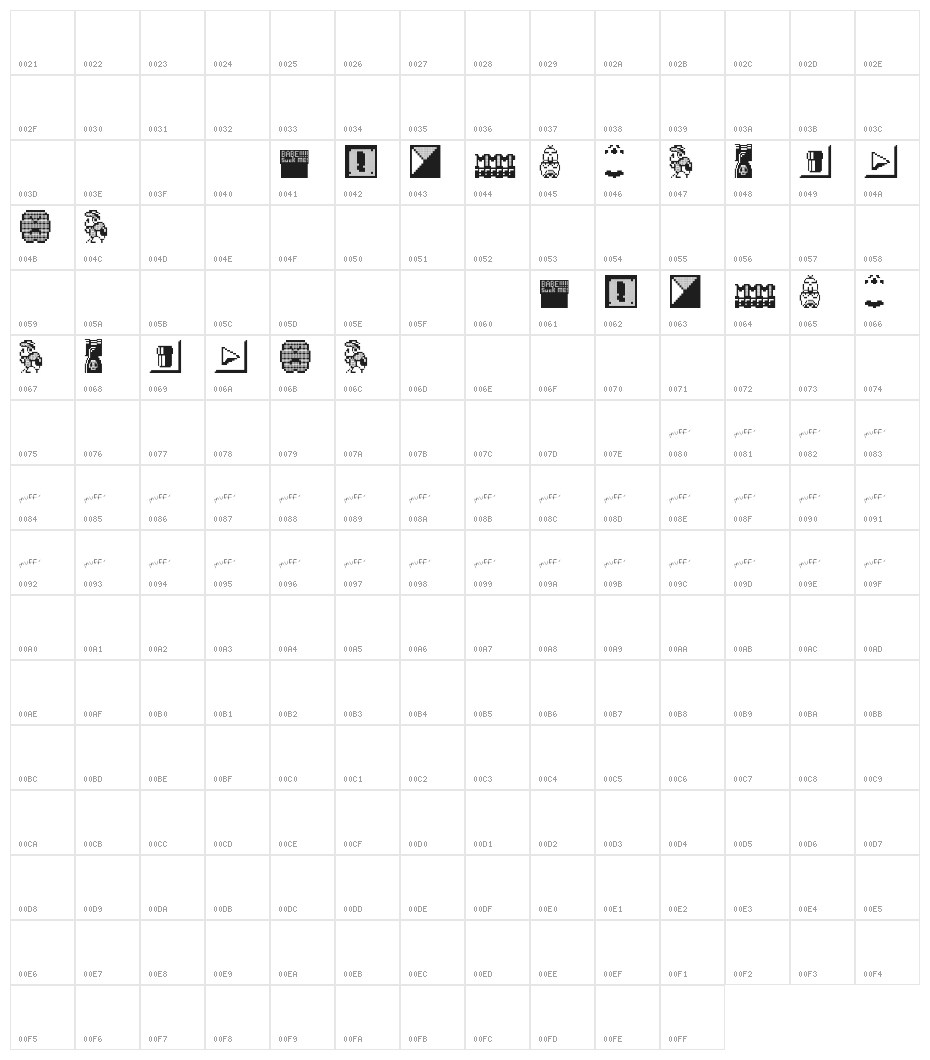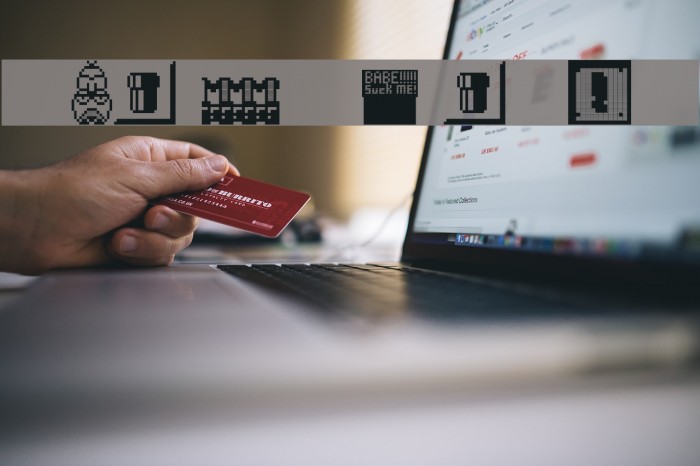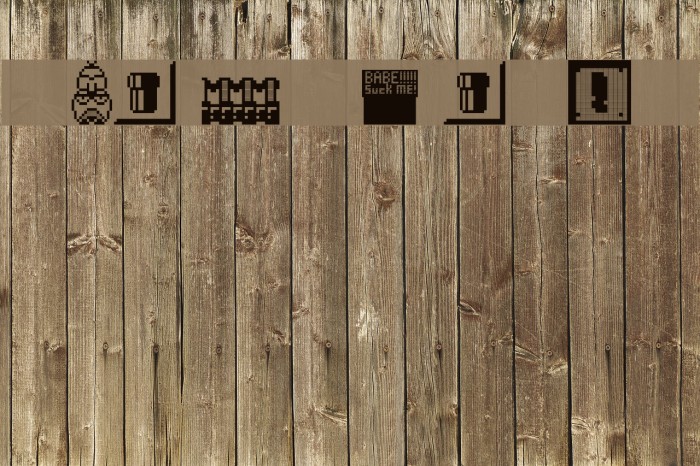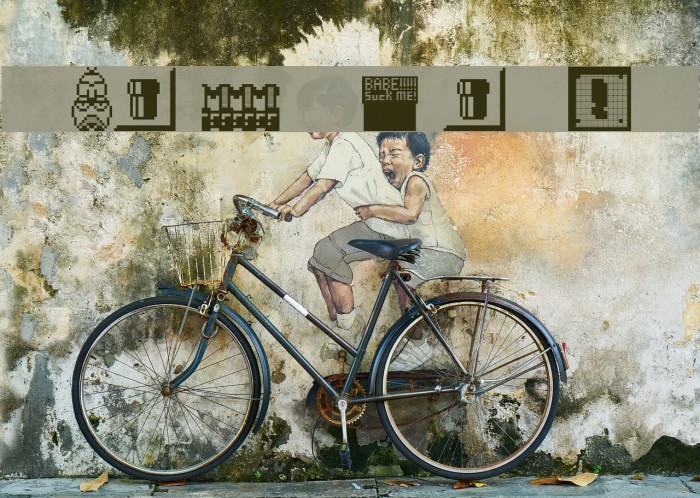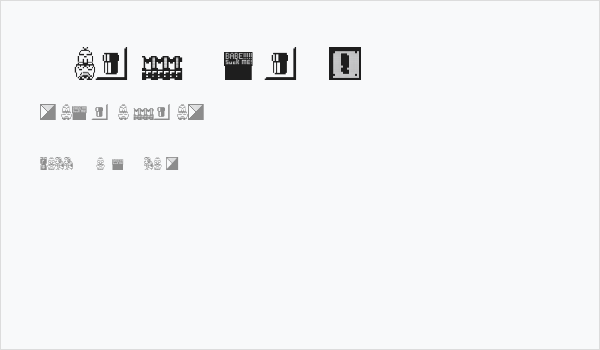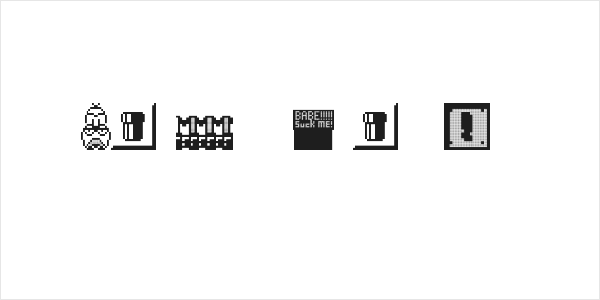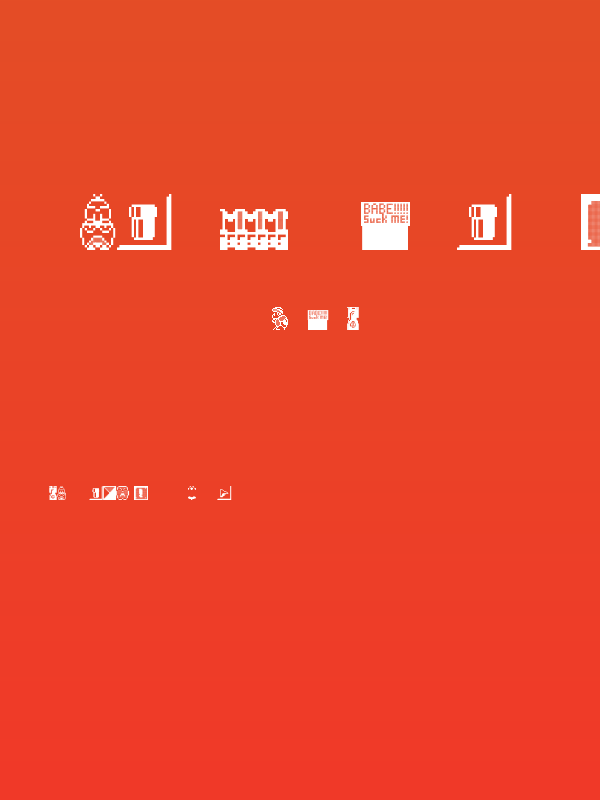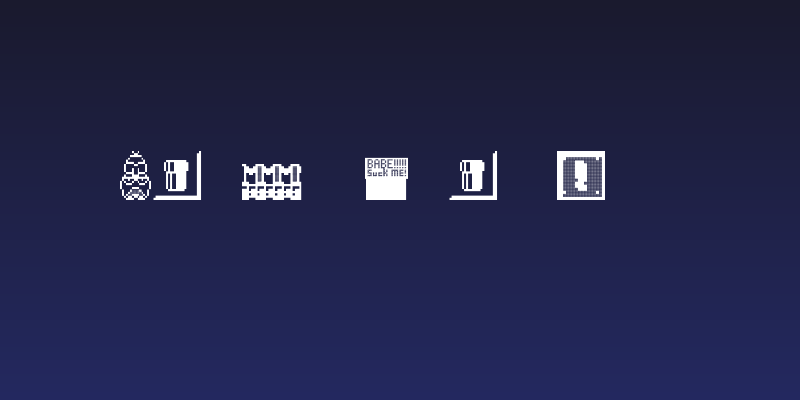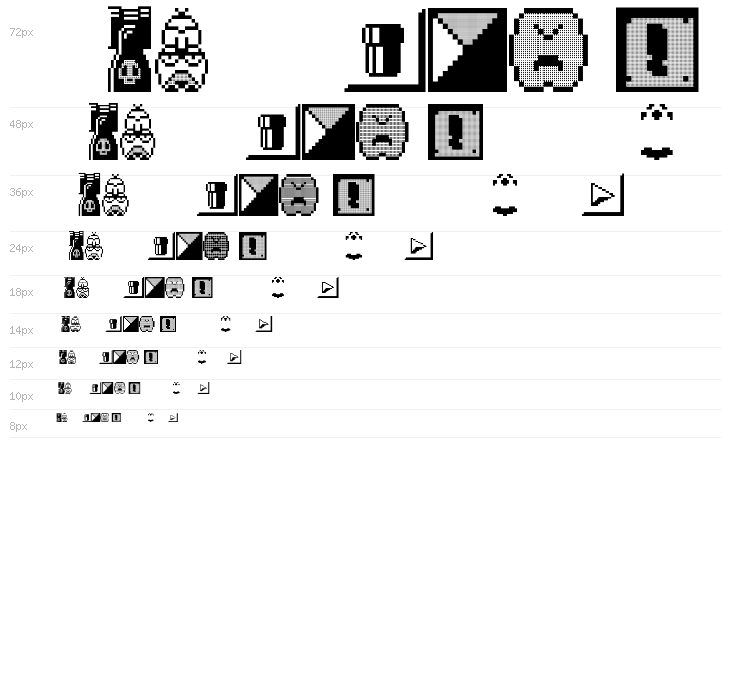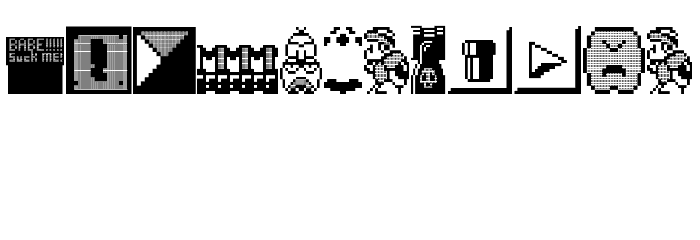
Weird Mario Bros Font
Weird Mario Bros Description
A pixel art bitmap font featuring quirky, game-inspired icons and characters, with a retro 8-bit style reminiscent of early video game graphics. The glyphs are highly decorative, with some resembling game elements and characters, and others using bold, blocky shapes. The font is monochrome, with high contrast and a playful, unconventional appearance.
| Overall Style | Decorative, Retro, Playful |
| Use Case | Logos, Posters, Game UI, Decorative headings |
| Proposed Projects | Retro video game interfaces, parody graphics, pixel art posters, novelty t-shirts, themed event flyers. |